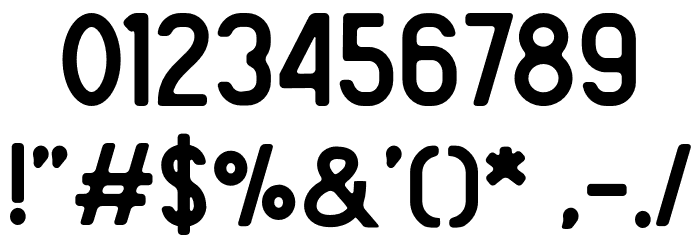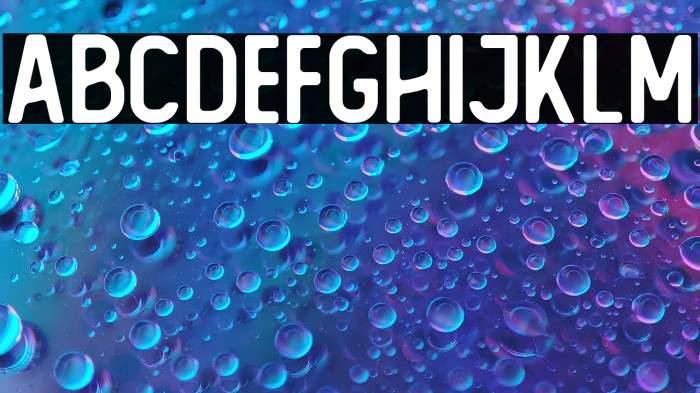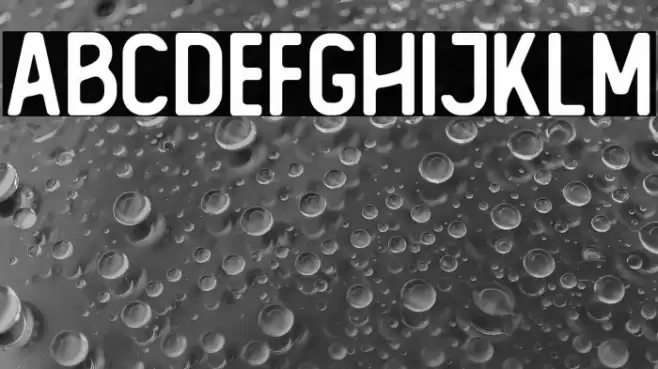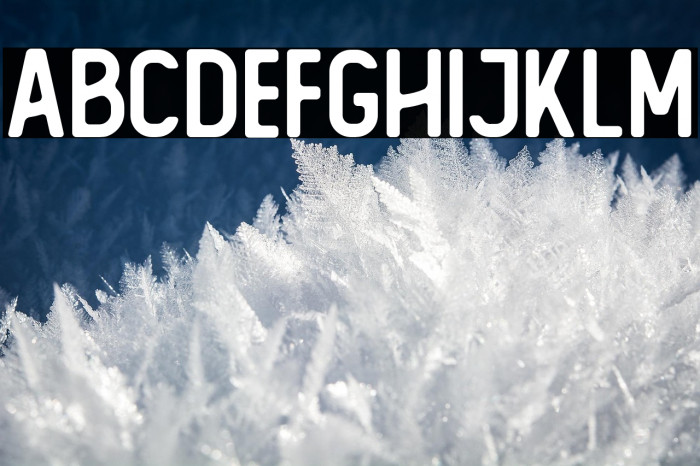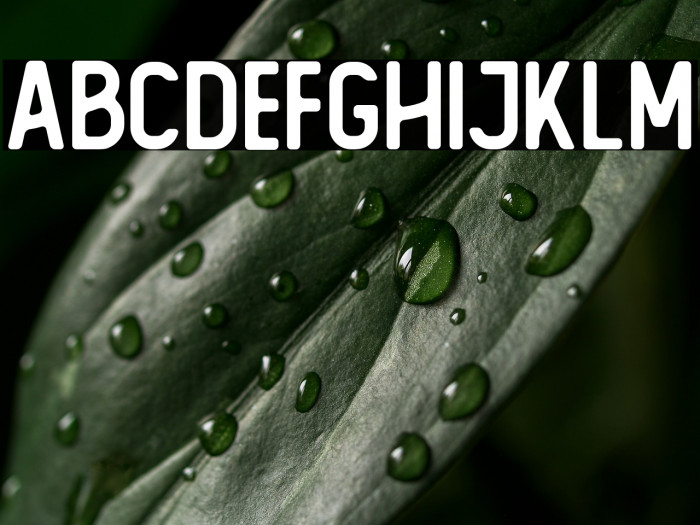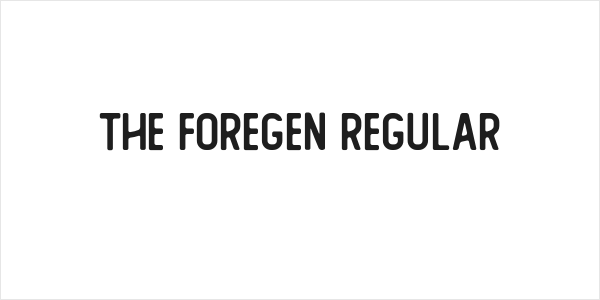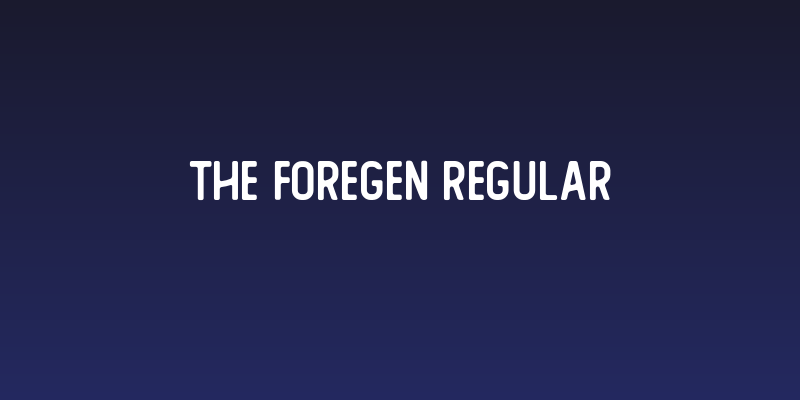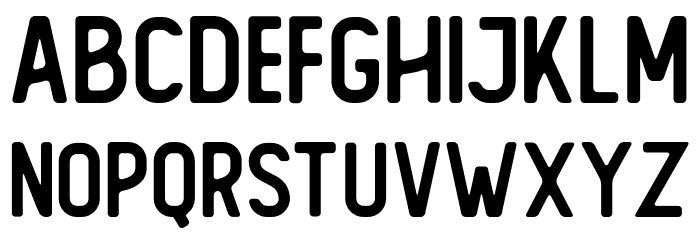
The Foregen Regular Font
The Foregen Regular Description
This font features a bold and rounded style, characterized by its thick strokes and smooth curves. The uppercase letters are uniform in height, creating a cohesive and balanced appearance. The numerals are equally bold, maintaining the same visual weight as the letters. Special characters are designed with the same rounded edges, ensuring consistency throughout. The overall look is modern and friendly, making it suitable for a variety of design applications.
| Proposed Projects | Ideal for branding, headlines, posters, and signage where a bold and approachable look is desired. |